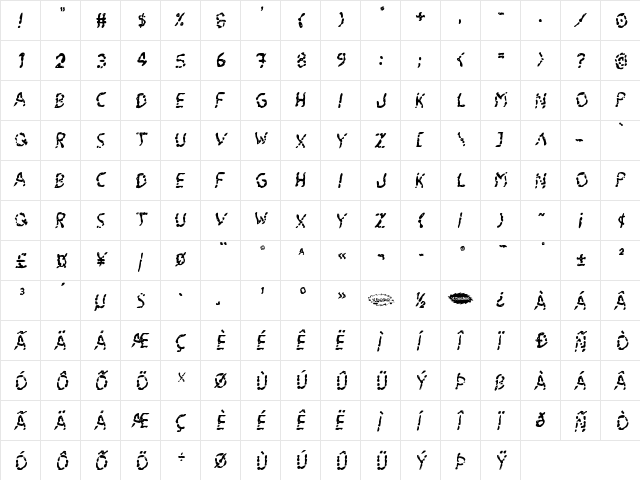
Blood Drenched Wavy Italic Regular
Design Context for Blood Drenched Wavy Italic Typeface
Blood Drenched Wavy Italic leans into the macabre with letterforms designed to disturb and intrigue in equal measure. The slanted form adds forward momentum and visual energy.
Perfect for anything that needs to unsettle — game titles, horror branding, and macabre invitations.
Font Pairing: Pair with a clean neutral sans-serif for body copy to let Blood Drenched Wavy Italic's character lead without overwhelming the composition.
Pro Tip: Use Blood Drenched Wavy Italic at larger display sizes for maximum impact. Consider generous tracking to let the disturbing character of each letterform breathe.